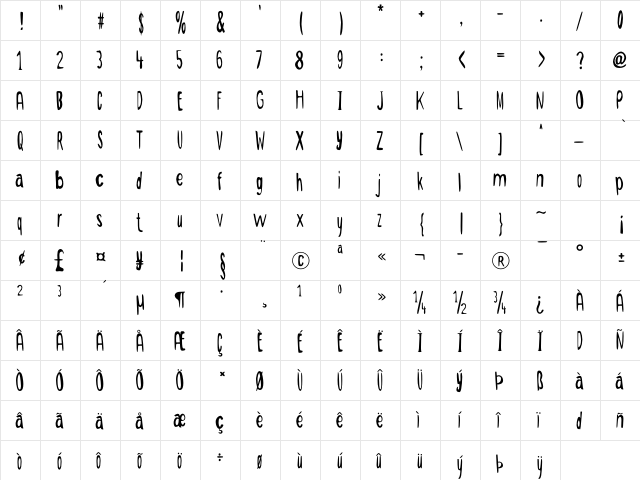
After Saturday Regular
| Designer | Kurnia Setyadi |
Design Context for After Saturday Typeface
After Saturday is a composed and adaptable typeface that performs quietly and consistently across a wide range of design contexts.